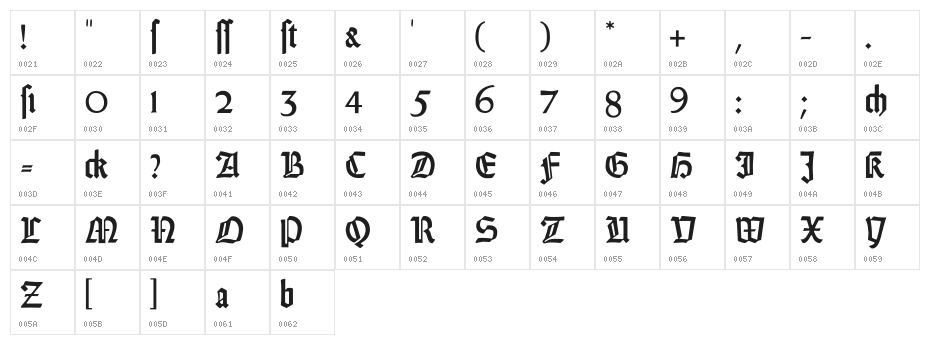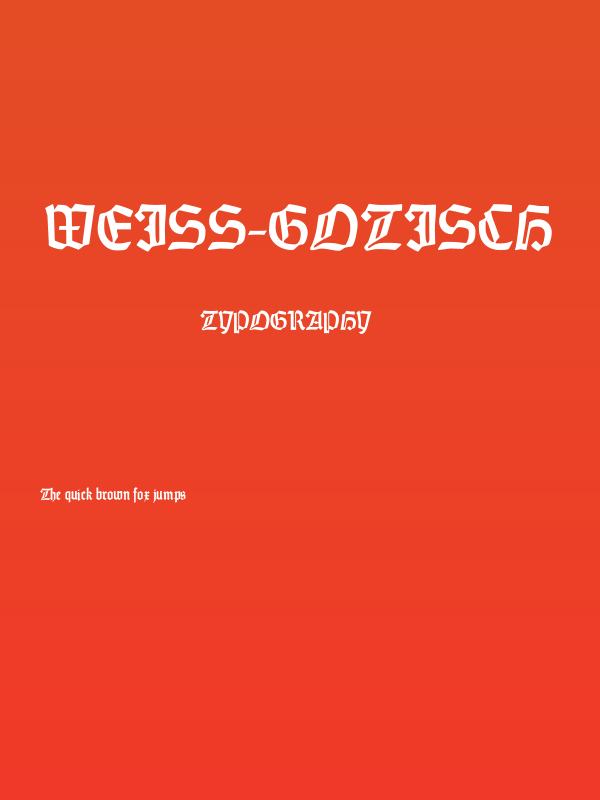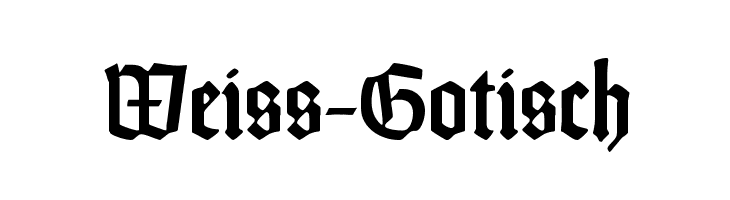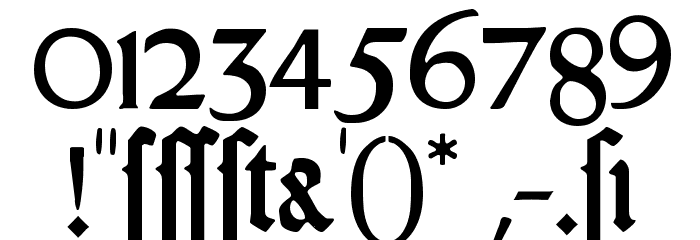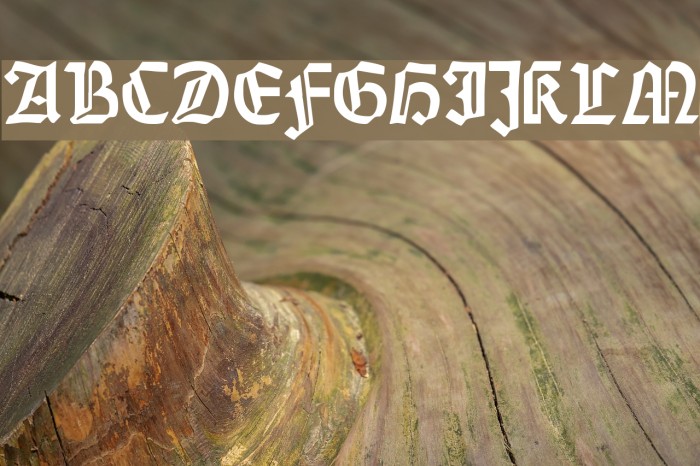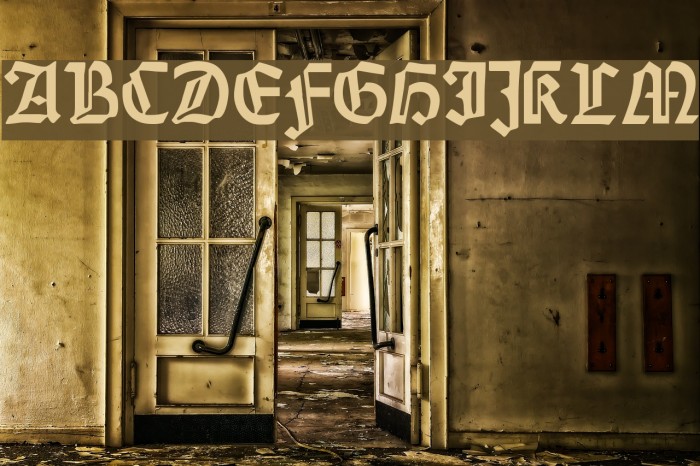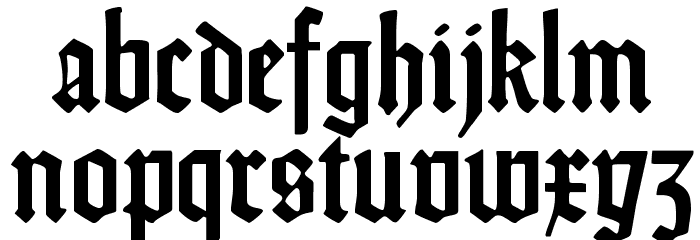
Weiss-Gotisch Font
Weiss-Gotisch Description
This font embodies the traditional Blackletter style, characterized by its intricate and ornate letterforms. The uppercase letters are bold and angular, with sharp serifs and a distinct medieval aesthetic. The lowercase letters maintain the same intricate detailing, offering a cohesive look across the typeface. The numerals are equally stylized, with a consistent weight and design that complements the alphabet. Special characters are crafted with the same attention to detail, enhancing the font's overall decorative appeal. This font is ideal for projects seeking a historical or Gothic touch, providing a dramatic and eye-catching appearance.